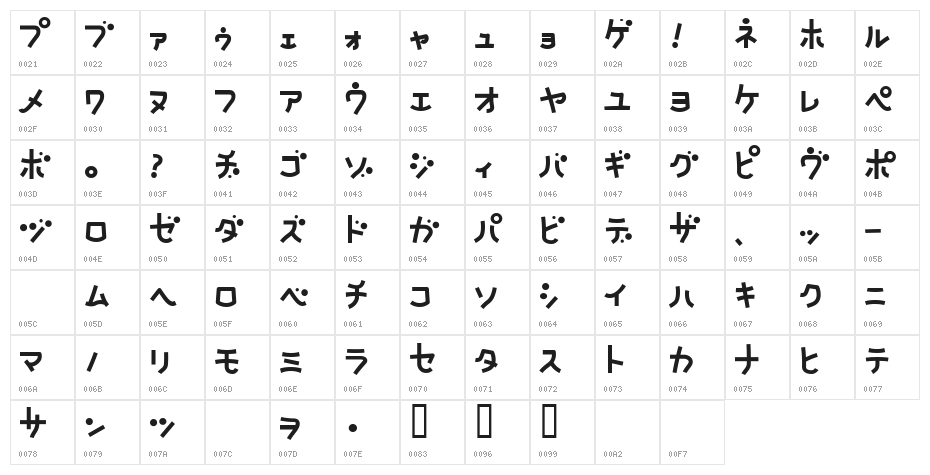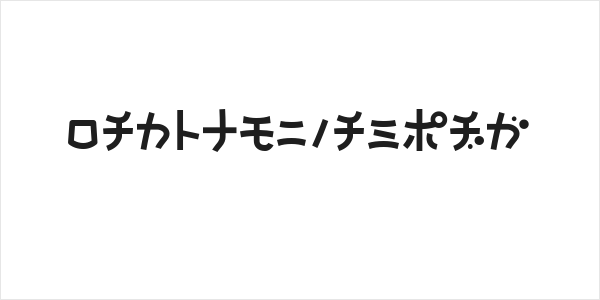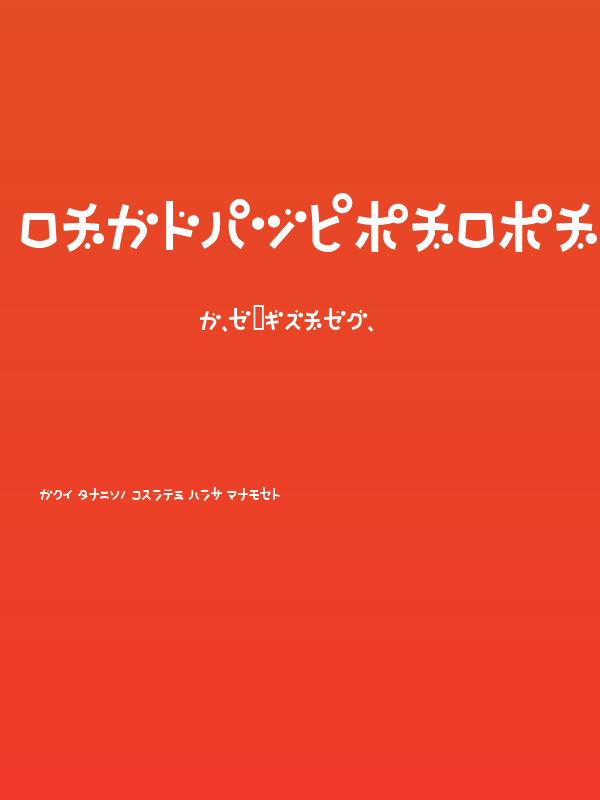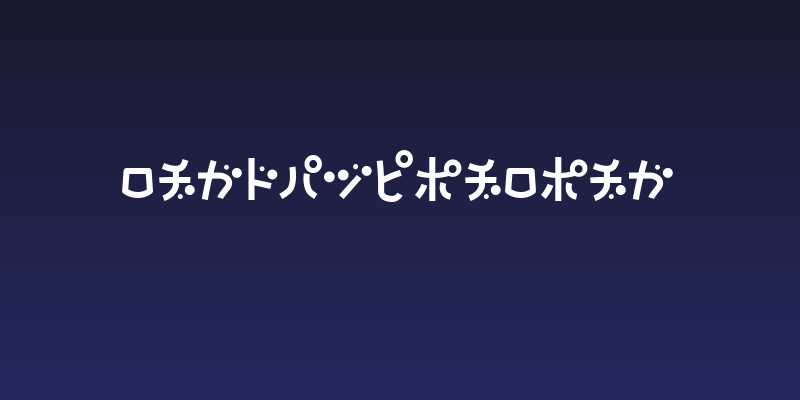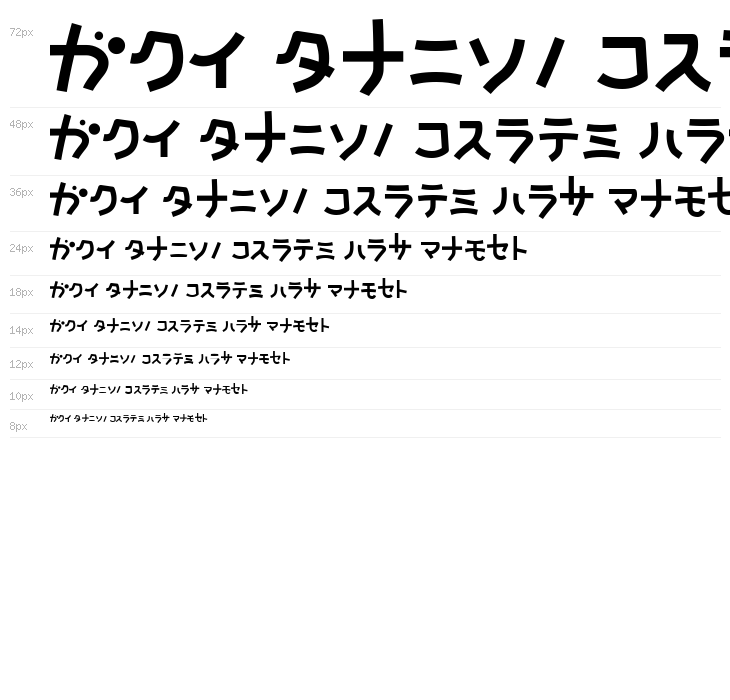
NatsumikanKAT Font
NatsumikanKAT Description
This font features a playful and bold style, characterized by its rounded and slightly irregular shapes. The characters have a whimsical appearance, with a consistent stroke weight that gives it a friendly and approachable feel. The design incorporates elements of both traditional and modern aesthetics, making it versatile for various creative applications. The font's unique character shapes and playful curves make it stand out, while maintaining readability. It is well-suited for projects that require a touch of fun and creativity, such as children's books, playful branding, or casual invitations.
| Overall Style | Playful, Modern |
| Proposed Projects | Children's books, playful branding, casual invitations, creative posters. |